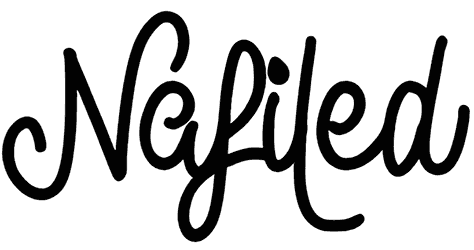
Nafiled Font
Do you like the hand art lettering for your modern design? Test Nafiled and watch how it will work, and lend a cute vibe to it. This handwritten font with its smooth monoline face will be a charming pattern for various projects such as planners, postcards, or the like, even without the backing of numbers and punctuation.